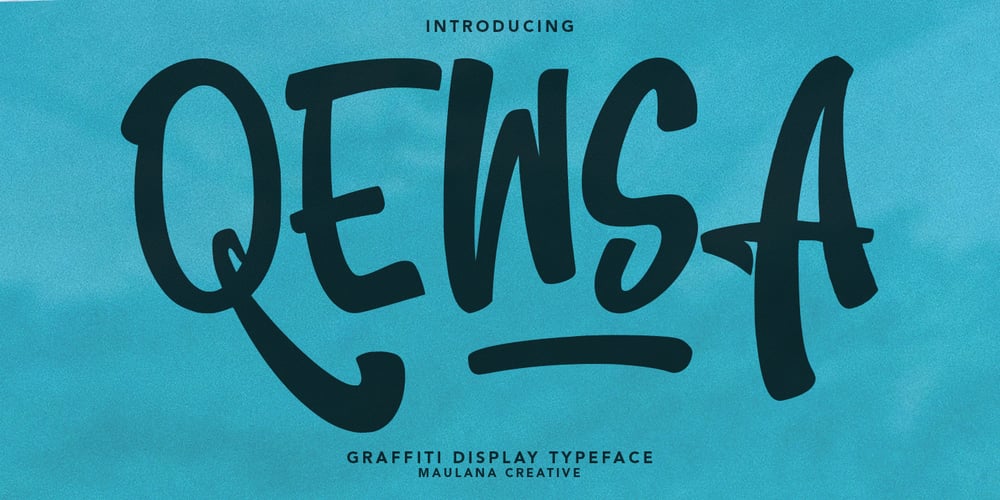
MC Qewsa Font Family was designed by Gilang Maulana and published by Maulana Creative. MC Qewsa contains 1 styles and family package options. Qewsa graffiti display typeface. Bold stroke, fun character with a bit of ligatures and alternates. To give you an extra creative work. Qewsa graffiti display typeface support multilingual more than 100+ language. This font is good for logo design, Social media, Movie Titles, Books Titles, a short text even a long text letter and good for your secondary text font with script or serif. Make a stunning work with Qewsa graffiti display typeface.Cheers,Maulana Creative